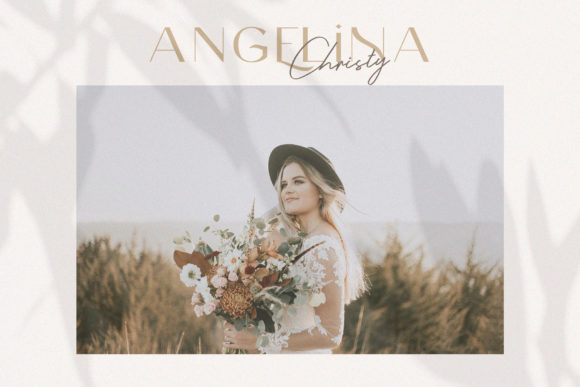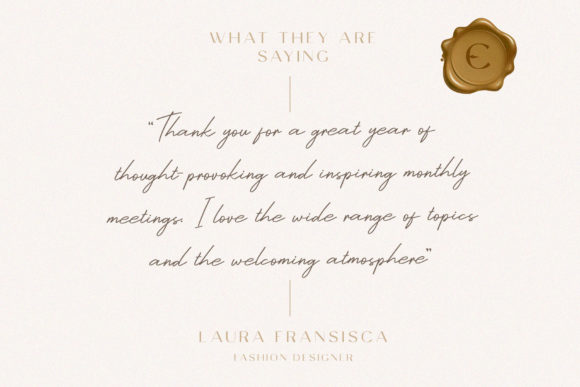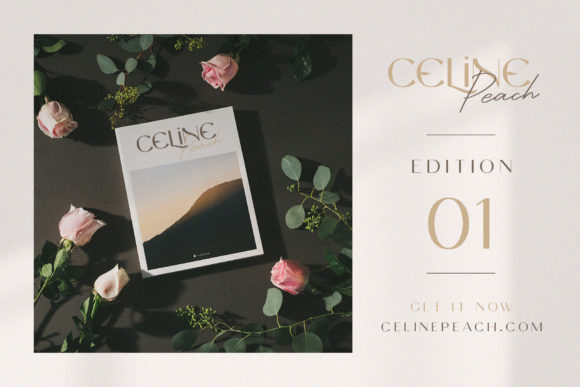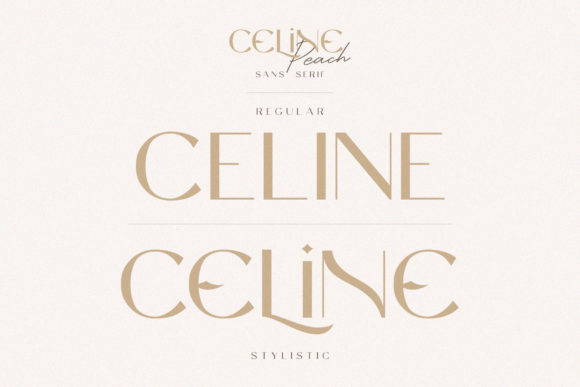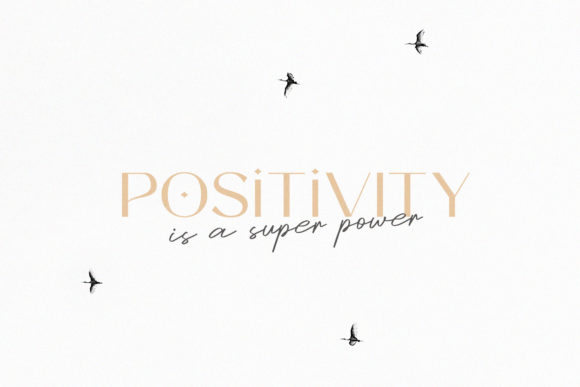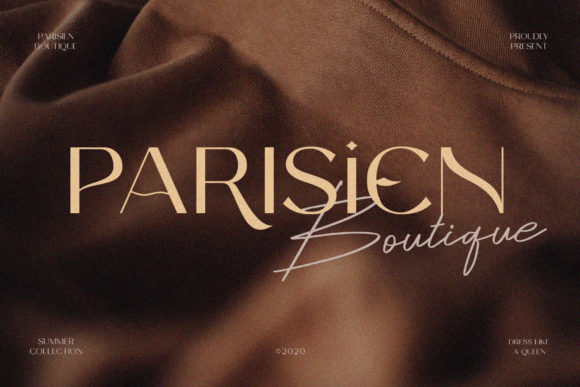
Unleash Your Creativity with Celine Peach Font
Have you ever stared at a blank page, waiting for inspiration to strike? I’m sure you have. As designers, we’re always on the lookout for that perfect font to bring our creative visions to life. And today, I’m excited to introduce you to a stunning display font duo that’s sure to spark your imagination: Celine Peach Font.
This beautifully crafted font duo is a match made in heaven, offering a luxurious and elegant look that’s perfect for any design project. With its PUA encoding, you’ll have access to a wealth of special features, including alternate glyphs and ligatures. Whether you’re designing a wedding invitation, a luxury brochure, or a fashion magazine, Celine Peach Font is the perfect tool to elevate your designs and make them truly unforgettable.
• Font Family: Celine Peach
• Unique Characteristics: Elegant, cursive script with a touch of peach-inspired warmth, ideal for invitations, greeting cards, and other creative projects
Celine Peach Font Review
I recently had the chance to work with the Celine Peach font, and overall, I have mixed feelings about it.
• The Celine Peach font has a unique and elegant feel to it, making it perfect for projects that require a touch of sophistication.
• The font’s curves and rounded edges create a sense of softness, which can be particularly effective for branding and marketing materials.
• The font’s legibility is also impressive, making it easy to read even at smaller font sizes.
• The Celine Peach font can be quite overwhelming when used in large quantities or for extended periods of time, which can be tiring to the eyes.
• The font’s nuances may not be immediately apparent to some users, which can lead to inconsistent usage and a lack of cohesion in design projects.
While the Celine Peach font has its strengths, I find it to be a bit overused and lacking in versatility. With careful usage and attention to balance, it can be a beautiful addition to a design project, but it’s not a font that I would use as a go-to choice.
Getting the Most Out of the Celine Peach Font
To get the most out of the Celine Peach Font, consider the following tips:
• Use it for elegant and sophisticated designs.
• Pair it with bold and playful fonts for contrast.
• Experiment with different font sizes and styles to create visual interest.
The Celine Peach Font is ideal for:
• Wedding invitations and stationery.
• Branding and marketing materials.
• Editorial and publishing projects.
Alternatives to Celine Peach Font for Designers
Celine Peach Font is a beautiful, elegant font that is perfect for creating a sophisticated and luxurious feel. However, sometimes you might need to find alternative fonts that offer similar characteristics. Here are a few options:
Pacifico is a beautiful script font that is reminiscent of handwriting. It is perfect for creating a warm and inviting feel, and is often used in branding and packaging design. Pacifico is similar to Celine Peach Font in that it is elegant and sophisticated, but it has a more relaxed and casual feel.
Great Vibes is a modern script font that is perfect for creating a fun and energetic feel. It is often used in advertising and promotional materials, and is great for adding a touch of whimsy to your design. Great Vibes is similar to Celine Peach Font in that it is elegant and sophisticated, but it has a more playful and youthful feel.
Carolyna Pro is a elegant script font that is perfect for creating a luxurious and high-end feel. It is often used in branding and packaging design, and is great for adding a touch of sophistication to your design. Carolyna Pro is similar to Celine Peach Font in that it is elegant and sophisticated, but it has a more refined and polished feel.